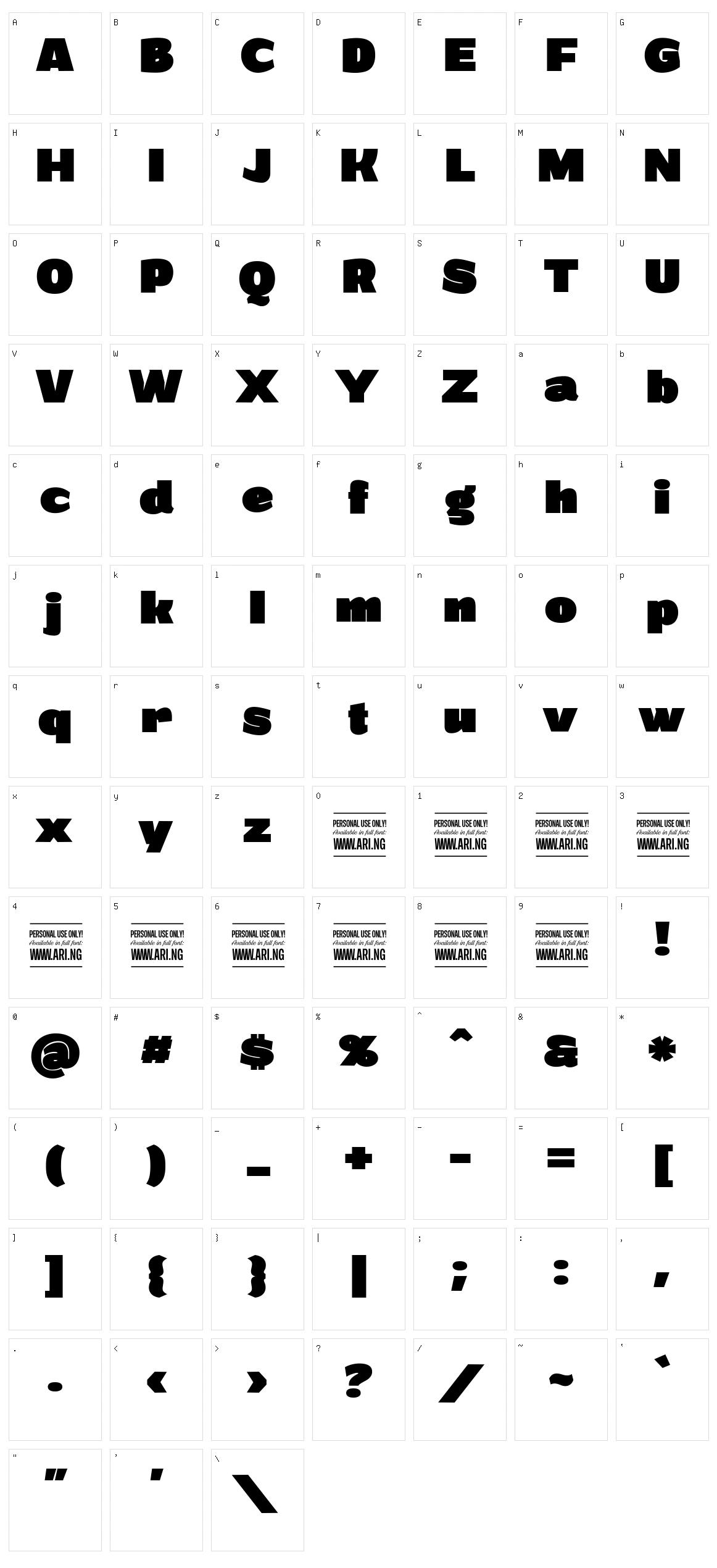
Grandi is a sans-serif in ten different styles.
Carefully designed by Måns Grebäck, this typeface's great variation makes it adaptable to any size and context.
It is confident and catchy, and comes in five weights, each one as upright and italic.